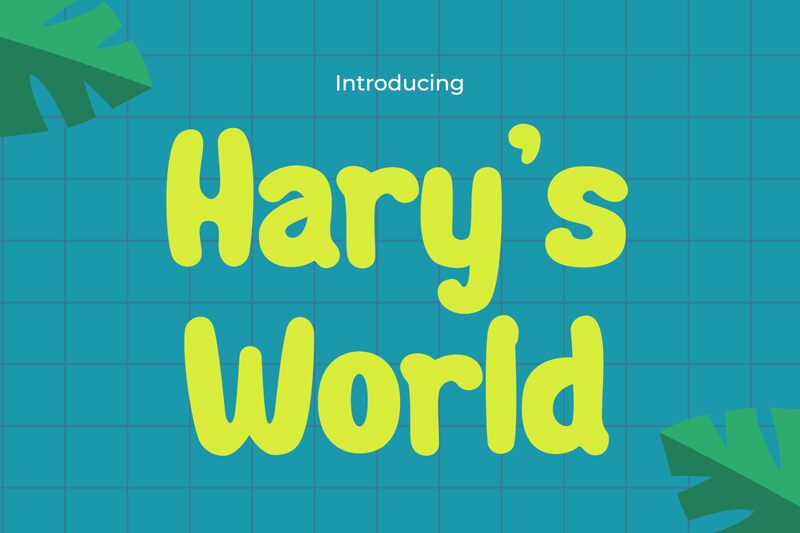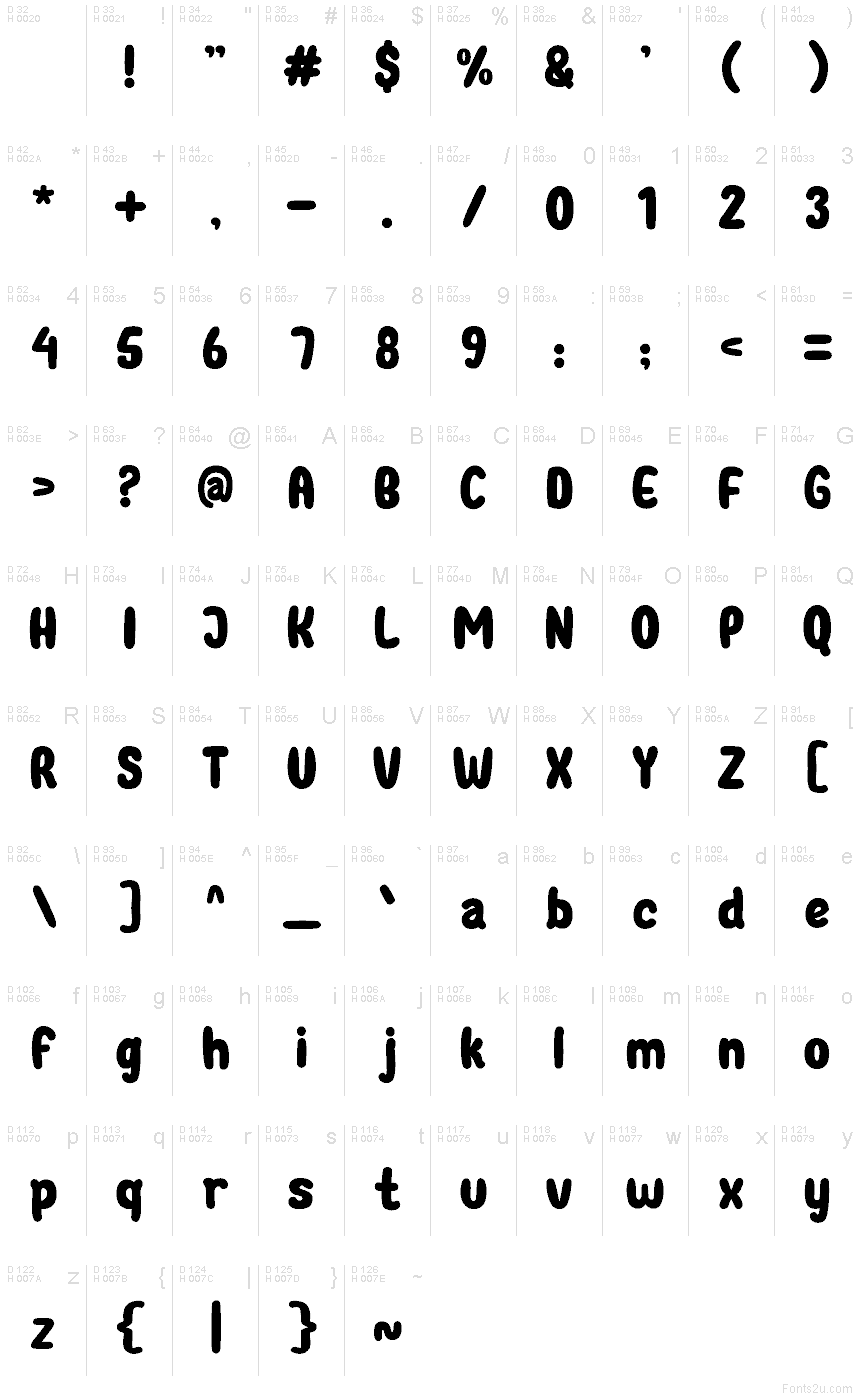
Harys-World
Harys-World font by Pinisiart is a free bold groovy display font. It stands out with pillowy, ink-heavy strokes, rounded bean-like curves, and a relaxed bounce that keeps words feeling buoyant. Despite the chunky forms, its steady rhythm and even color make headlines punchy without turning into a blob—friendly, loud, and easy to scan.
Using Harys-World, you’ll add feel-good energy to snack packaging, kids’ branding, festival posters, stickers, social posts, and cafe menus. This free font loves big sizes and loose tracking, where the soft edges really breathe. For copy or captions, pair it with a thin sans-serif to keep contrast crisp and the message clear.